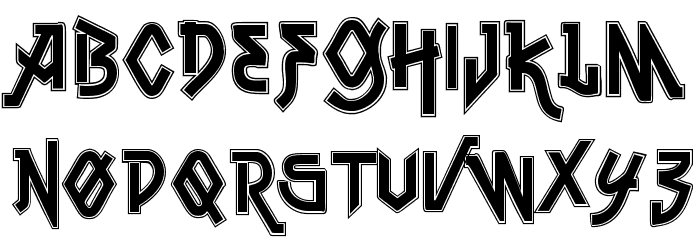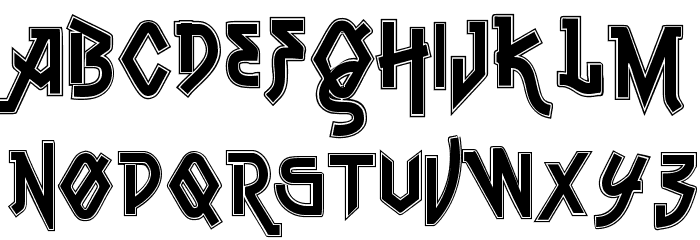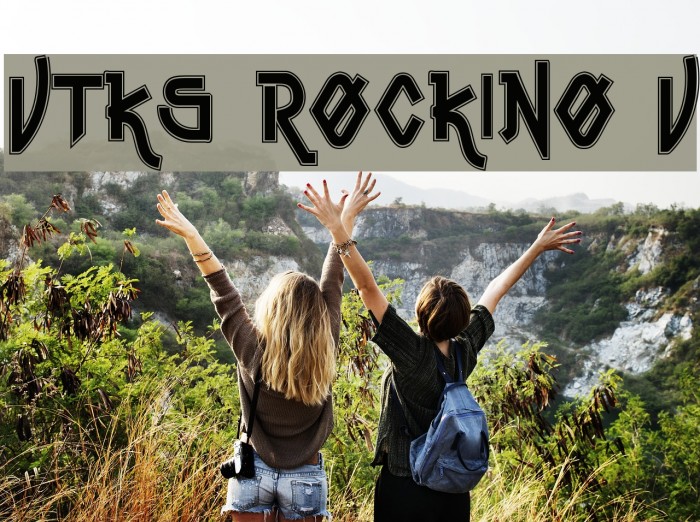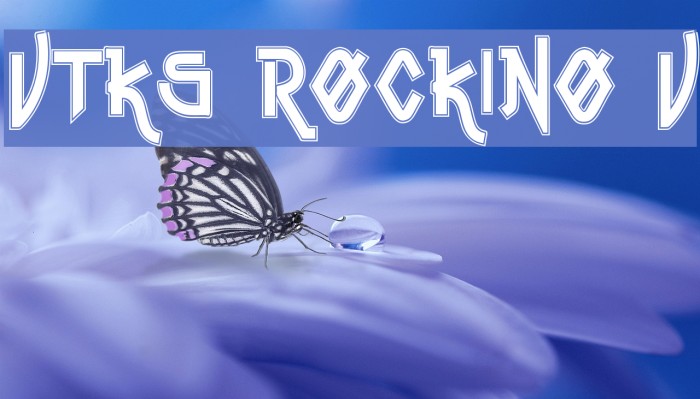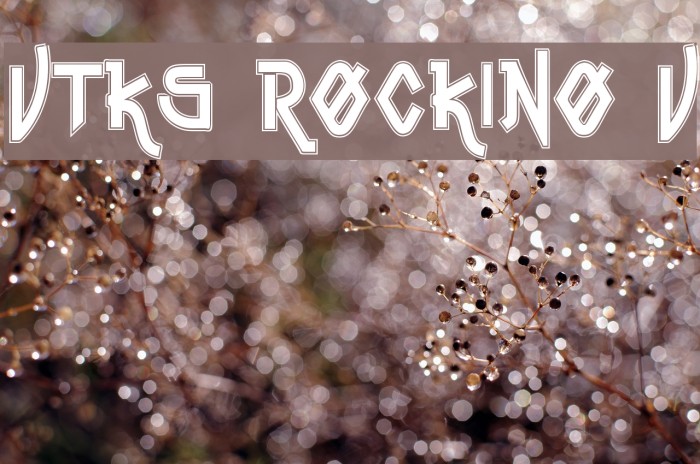
Vtks Rockino V2 Font
This font features a bold and edgy design, characterized by sharp angles and a strong presence. The letters are heavily stylized with a distinct, almost futuristic appearance, making them stand out with their unique geometric shapes. The font's structure is consistent, with each character maintaining a uniform height and width, contributing to its bold and impactful look. The strokes are thick and solid, providing a sense of strength and stability. This font is particularly suited for projects that require a modern and dynamic aesthetic, such as music album covers, posters, or branding for edgy and contemporary products.
A bold, edgy font with sharp angles and a futuristic style.
- Proposed Projects: Ideal for music album covers, posters, and branding for modern products.